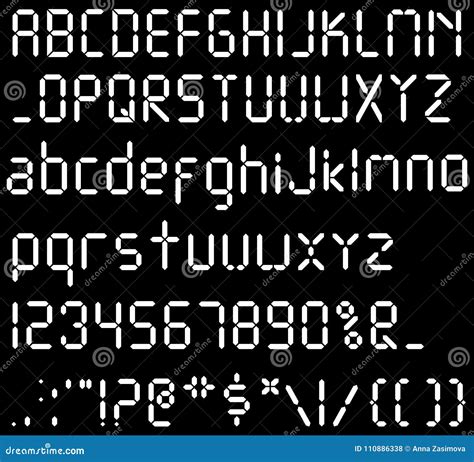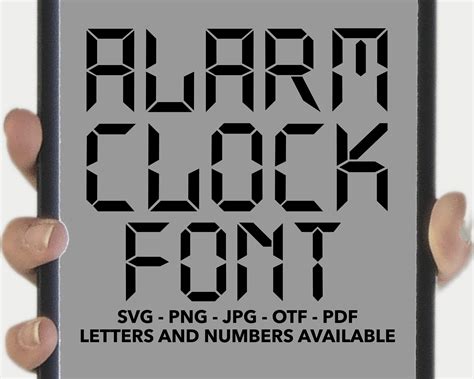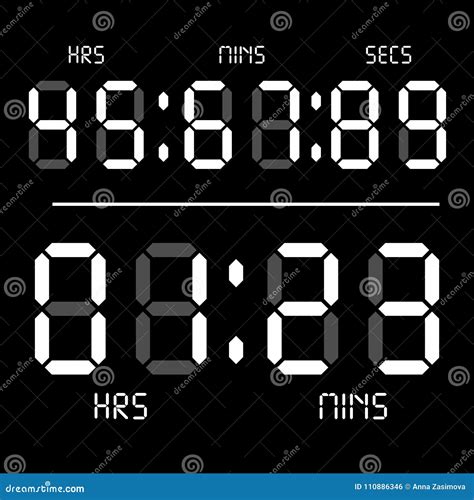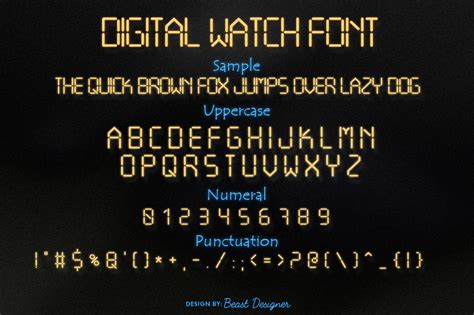
Digital Watch Font
In the digital age, the design and functionality of digital devices have evolved significantly, and one of the most noticeable changes is the evolution of fonts used in digital displays. The digital watch font is a prime example of how typography has adapted to meet the needs of modern technology. These fonts are specifically designed to be easily readable on small screens, ensuring that users can quickly and accurately interpret the time and other information displayed.
Understanding Digital Watch Fonts
The digital watch font is more than just a stylistic choice; it serves a practical purpose. These fonts are engineered to be highly legible, even in low-light conditions or from a distance. The design often features bold, clear lines and ample spacing between characters to minimize confusion. This is particularly important for digital watches, where the display area is limited, and readability is crucial.
The Evolution of Digital Watch Fonts
The journey of digital watch fonts began with the advent of digital watches in the 1970s. Early digital watches used simple, blocky fonts that were easy to read but lacked aesthetic appeal. As technology advanced, so did the fonts. Today, digital watch fonts come in a variety of styles, from sleek and modern to retro and vintage, catering to different tastes and preferences.
One of the most iconic digital watch fonts is the LED-style font, which mimics the look of seven-segment displays commonly found in early digital watches and calculators. This font is characterized by its segmented digits, which are easy to read and have a distinct, nostalgic appeal. Other popular styles include:
• Dot Matrix Fonts: These fonts use a grid of dots to form characters, providing a pixelated look that is reminiscent of early digital displays.
• LCD Fonts: These fonts are designed to mimic the appearance of liquid crystal displays, offering a clean and modern look.
• Retro Fonts: These fonts draw inspiration from vintage digital watches, often featuring bold, blocky letters with a nostalgic feel.
Design Principles of Digital Watch Fonts
Creating an effective digital watch font involves several key design principles. These principles ensure that the font is not only aesthetically pleasing but also highly functional. Some of the most important design principles include:
• Legibility: The font must be easy to read, even from a distance or in low-light conditions. This is achieved through the use of clear, bold lines and ample spacing between characters.
• Simplicity: Digital watch fonts should be simple and uncluttered, avoiding unnecessary details that could distract from the primary information being displayed.
• Consistency: The font should maintain a consistent style across all characters, ensuring a cohesive and professional appearance.
• Contrast: High contrast between the font and the background is essential for readability, especially in low-light conditions.
There are numerous digital watch fonts available, each with its unique characteristics and appeal. Some of the most popular fonts include:
Font Name Style Characteristics
DS-Digital LED Features segmented digits with a modern, sleek design.
Orbitron LCD Offers a clean, futuristic look with rounded edges.
VCR OSD Mono Dot Matrix Provides a pixelated, retro appearance with a nostalgic feel.
Digital-7 Retro Features bold, blocky letters with a vintage digital watch aesthetic.
Each of these fonts has its own unique style and can be used to create a distinctive look for digital watches. The choice of font often depends on the desired aesthetic and the specific needs of the user.
Customizing Digital Watch Fonts
For those who want to add a personal touch to their digital watches, customizing the digital watch font is an excellent option. Many modern smartwatches and fitness trackers allow users to customize the display font, offering a range of options to choose from. Additionally, some devices support custom fonts, allowing users to upload their own designs.